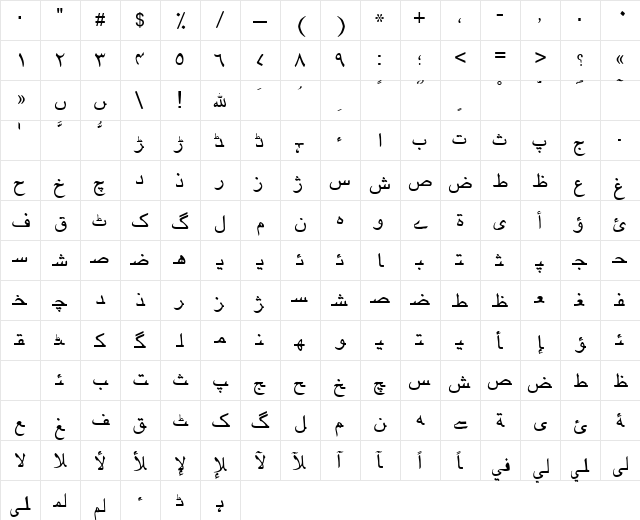
Urdu Regular
Design Context for Urdu Typeface
Urdu is a composed and adaptable typeface that performs quietly and consistently across a wide range of design contexts.